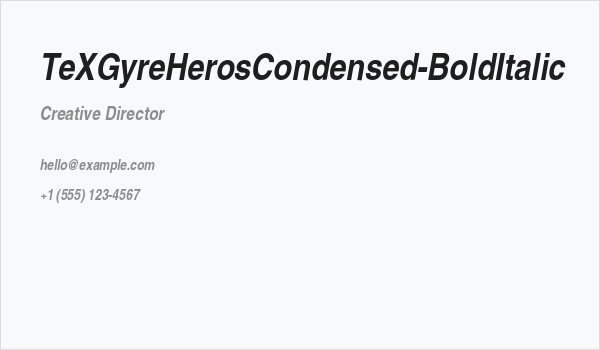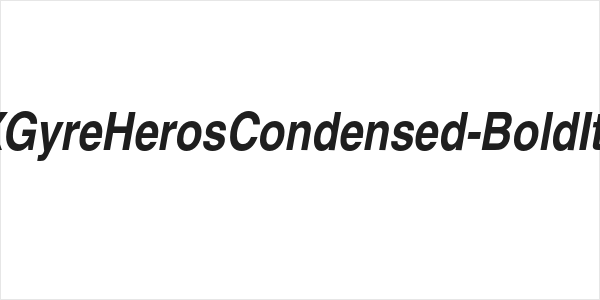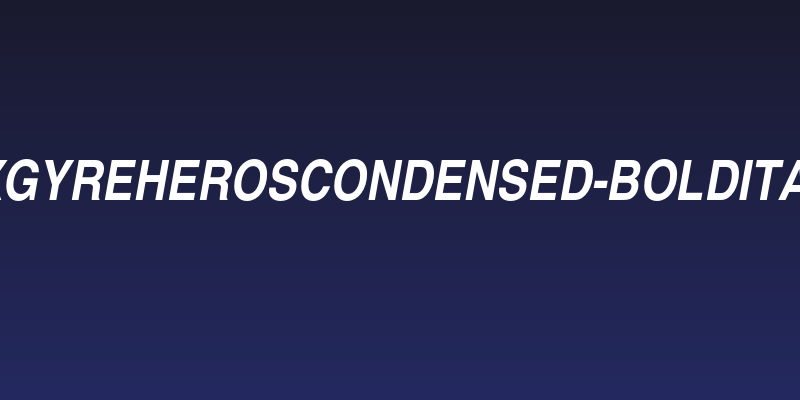
TeXGyreHerosCondensed-BoldItalic Font
TeXGyreHerosCondensed-BoldItalic Description
This font features a bold and italicized style with a condensed width, making it ideal for impactful and space-efficient text. The characters exhibit a modern sans-serif design with smooth curves and clean lines, enhancing readability while maintaining a strong visual presence. The uniform stroke width and slight slant add a dynamic and contemporary feel, suitable for various design applications. The font includes a full set of uppercase and lowercase letters, numbers, and a range of special characters, ensuring versatility in usage.
| Proposed Projects | Ideal for headlines, posters, branding, and advertising where a strong and modern impact is needed. |